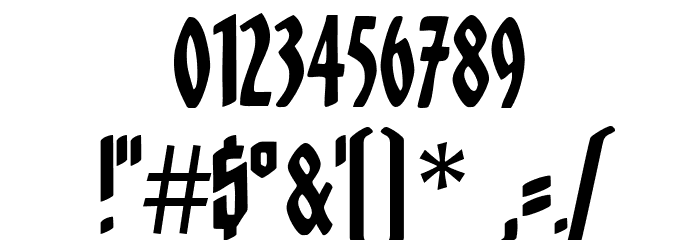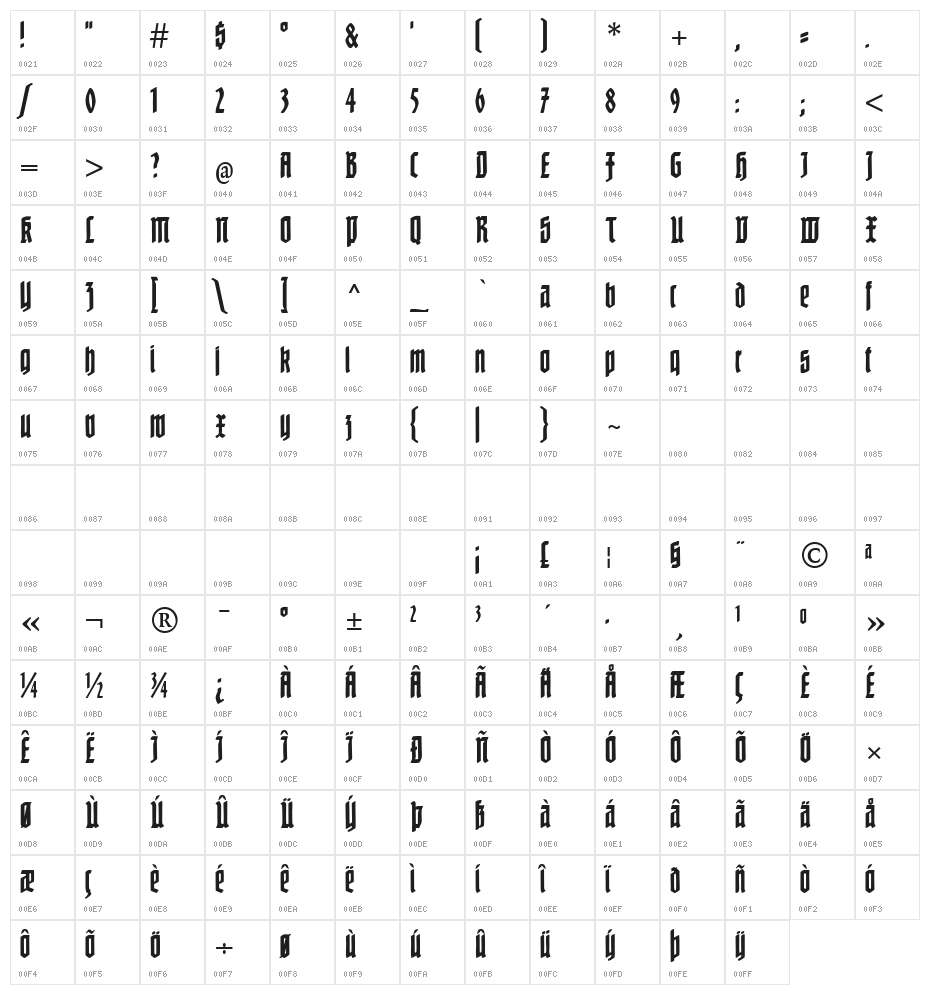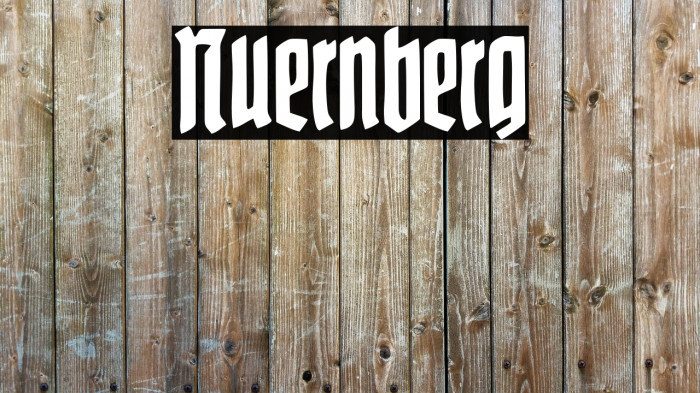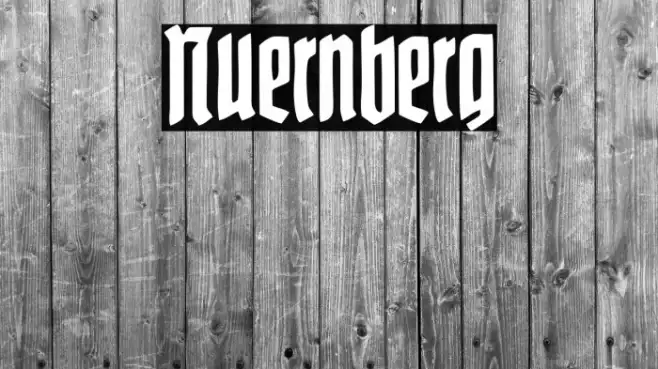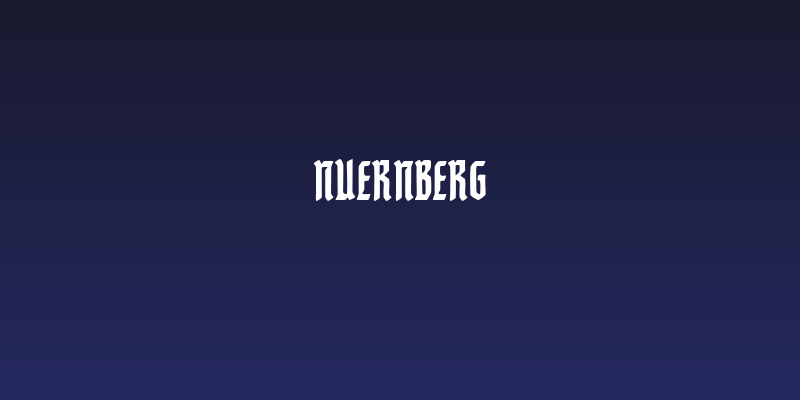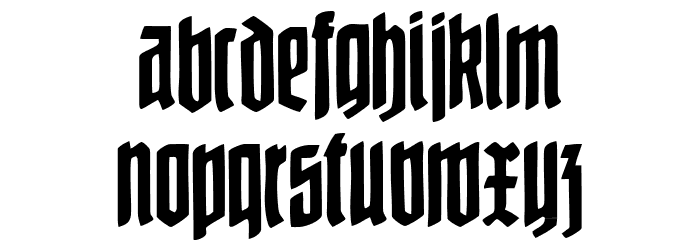
Nuernberg Font
Nuernberg Description
This font exhibits a bold and striking blackletter style, characterized by its sharp, angular lines and dramatic presence. The uppercase letters are tall and narrow, with intricate serifs that enhance its gothic appearance. The lowercase letters maintain the same angularity, providing a cohesive look throughout the typeface. Numbers and special characters are designed to match the overall aesthetic, ensuring consistency. This font's historical and traditional feel makes it suitable for projects that require a touch of medieval or classic elegance.